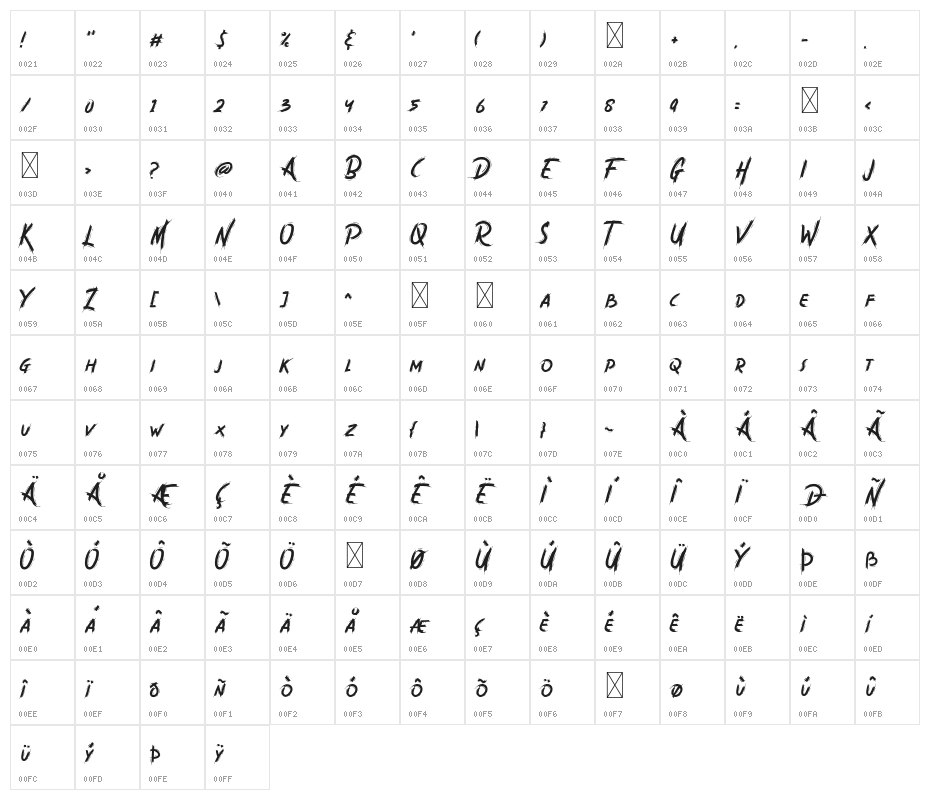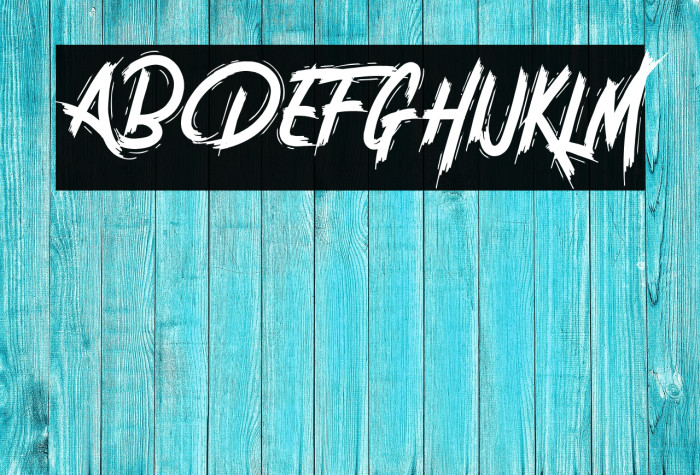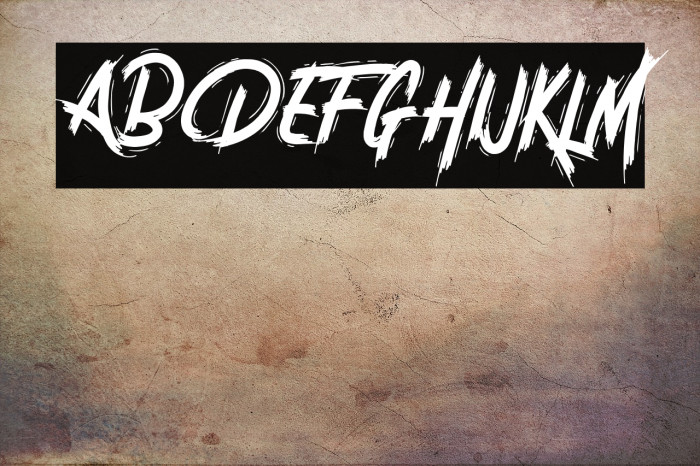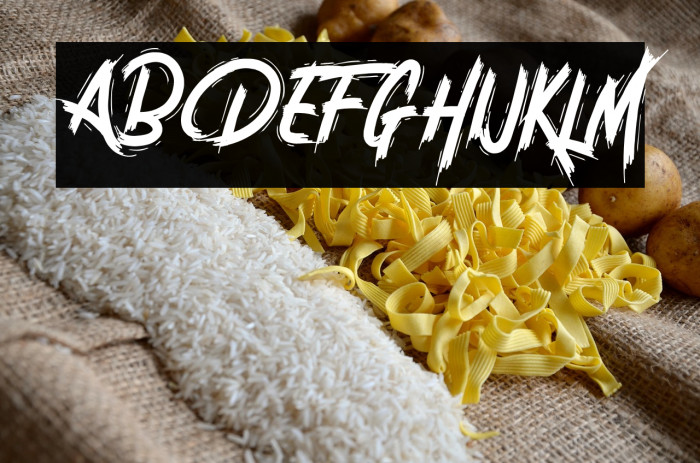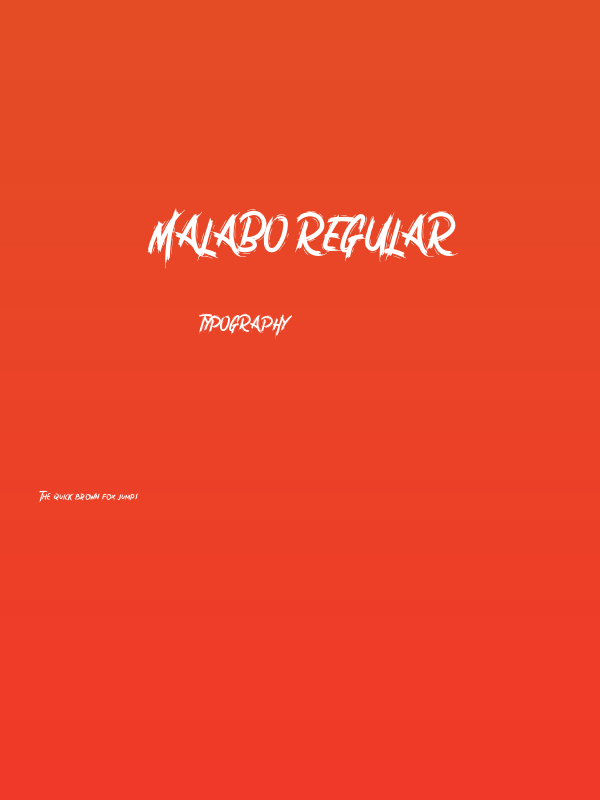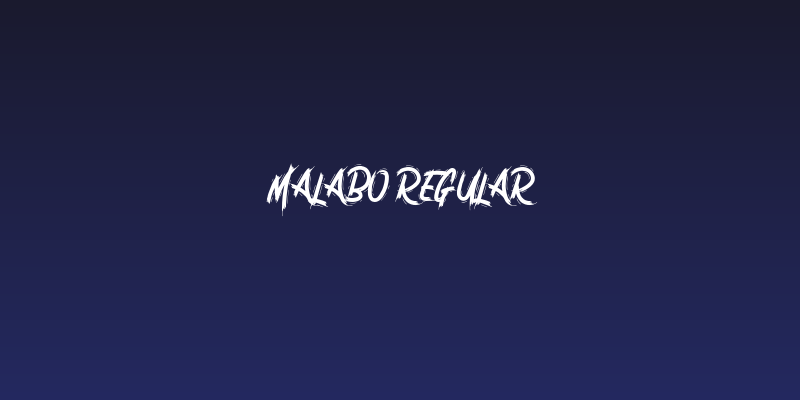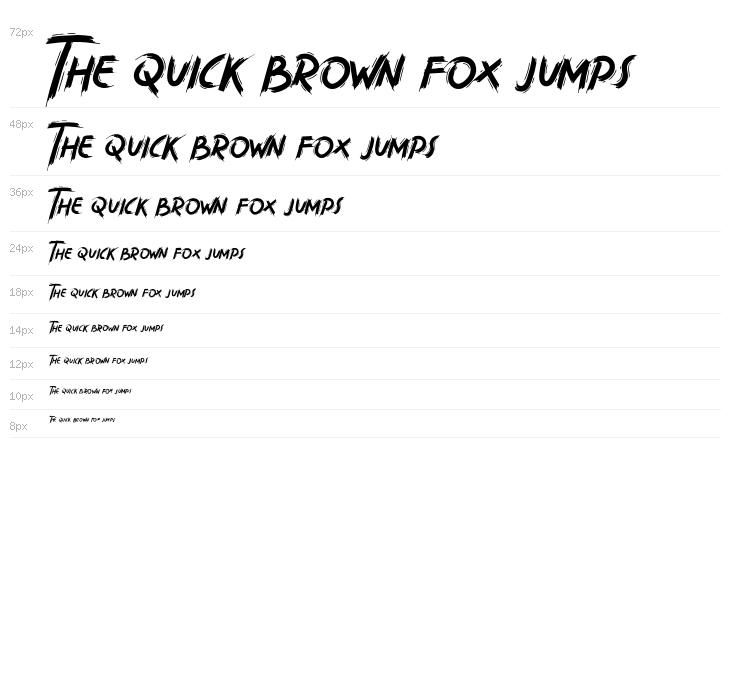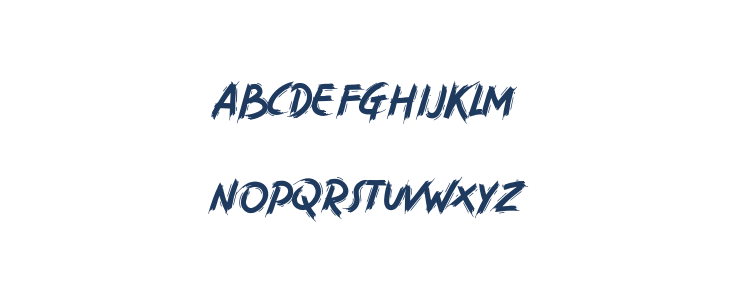
Malabo Regular Font
Malabo Regular Description
This font features a dynamic and energetic brushstroke style, giving it a bold and edgy appearance. The letters are characterized by sharp, jagged edges and a sense of movement, as if they were painted with a swift, confident hand. The uppercase and lowercase letters maintain a consistent style, with a slightly condensed form that enhances their dramatic flair. The numbers and special characters follow the same aesthetic, ensuring a cohesive look across all text elements. This font's unique style makes it stand out, perfect for projects that require a strong visual impact.